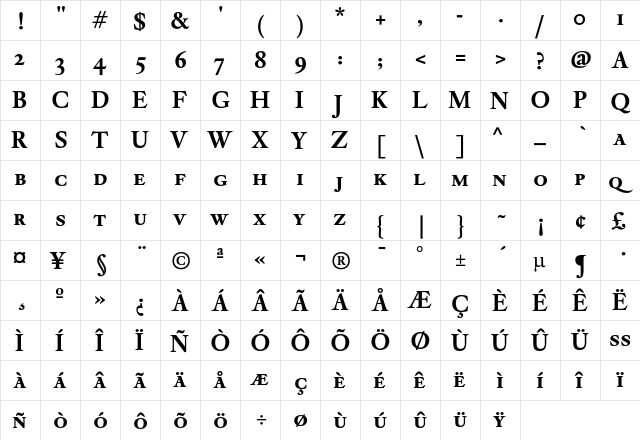
DTL Elzevir T Caps Bold
Design Context for DTL Elzevir Typeface
DTL Elzevir offers clean, dependable letterforms without strong stylistic allegiance, making it a practical choice for designers who need flexibility. The heavy weight commands attention and anchors typographic hierarchies.
Pro Tip: Pair DTL Elzevir with a font of contrasting weight or personality to build a more expressive typographic hierarchy.